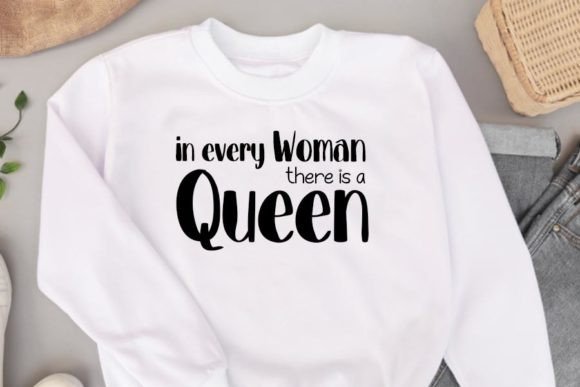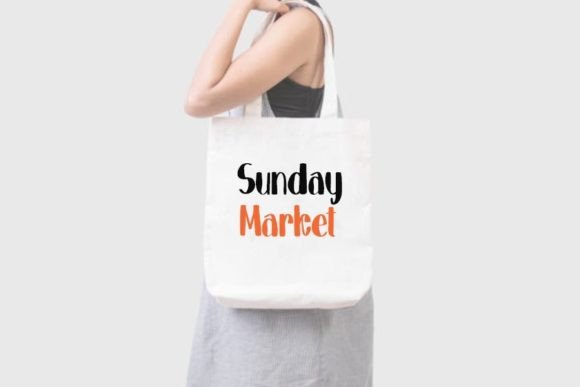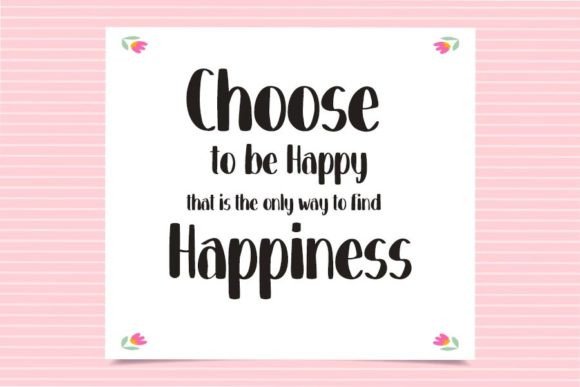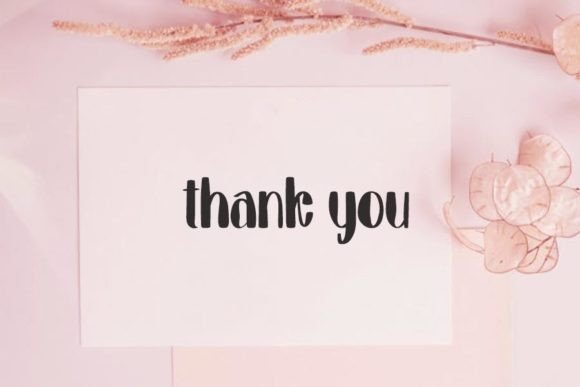
The Girlfriend Font: A Cute and Friendly Companion for Your Design Projects
So, what makes the Girlfriend font so special? Let’s dive into the good stuff and a few quirks I’ve discovered.
- ✨ Cute and Friendly: The Girlfriend font is, without a doubt, one of the cutest fonts I’ve ever used. Its friendly vibe makes it perfect for brands that want to appear approachable and fun.
- ✅ Playful and Quirky: This font has a bit of a quirky personality, which I adore. It’s great for adding a touch of whimsy to your designs.
- ✅ Versatile: The Girlfriend font works beautifully for logos, branding, posters, and even crafty DIY projects.
While the Girlfriend font is amazing, there are a few things to keep in mind:
- 🤔 Limited Formality: Due to its playful nature, this font might not be the best choice for very formal or professional projects.
- ⚠️ Legibility at Small Sizes: Like many script fonts, the Girlfriend font can get a bit tricky to read at very small sizes. Make sure to test it out before finalizing your design.
The Story Behind Girlfriend Font
The Girlfriend font was designed with love and care by a talented type designer who wanted to create a font that captures the essence of friendship and playfulness. Inspired by handwritten notes and letters, this font is meant to bring a smile to your face and make your designs stand out.
| Font Name | Girlfriend Font |
| Author | Snowman Studio |